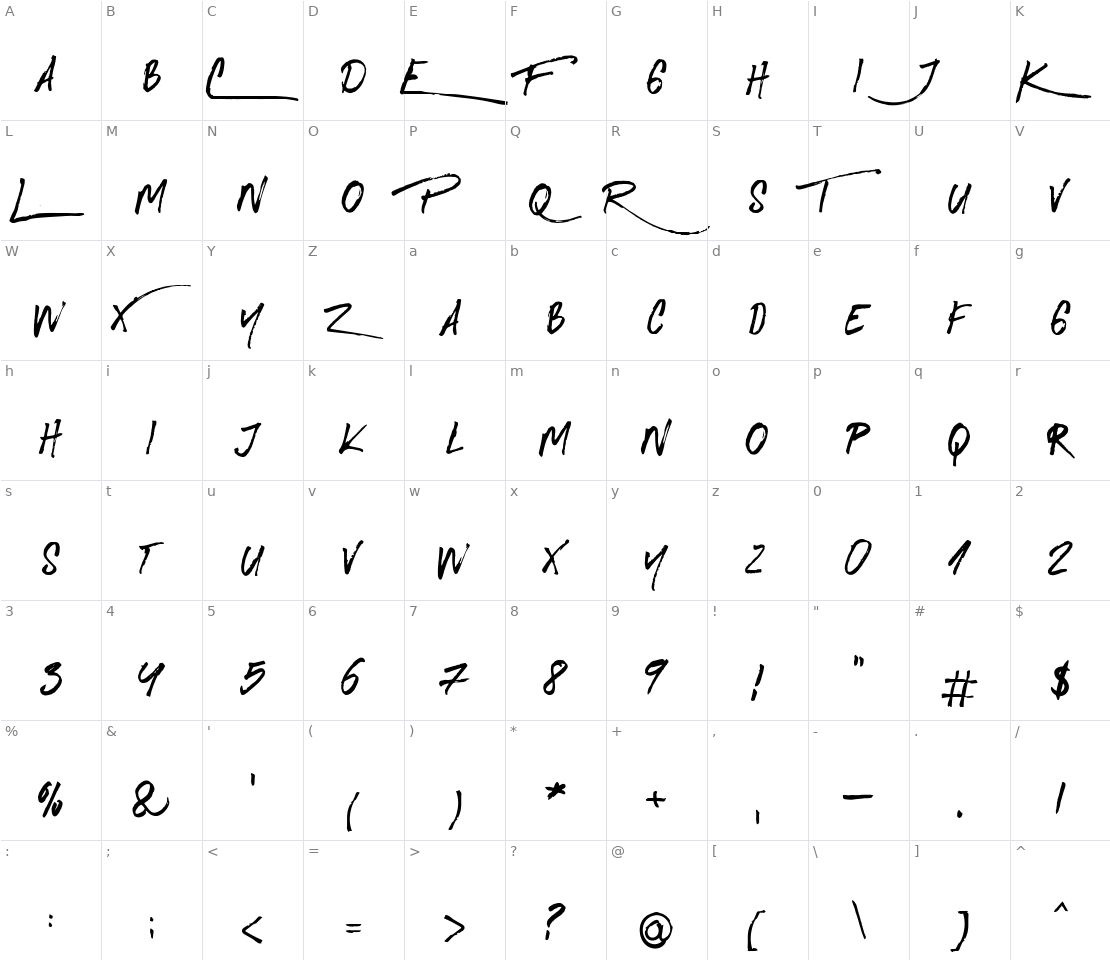
Royal Twins
Royal Twins is a bold brush typeface by Leonard Posavec with thick, expressive ink strokes that feel fast and physical, like they were laid down in one confident pass. The rough edges and visible texture keep it from looking too polished, giving it a raw, casual energy that works well for headlines, packaging, and branding where you want something that feels handmade but still hits hard.